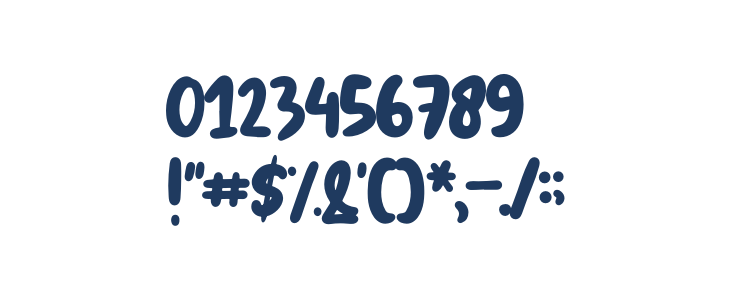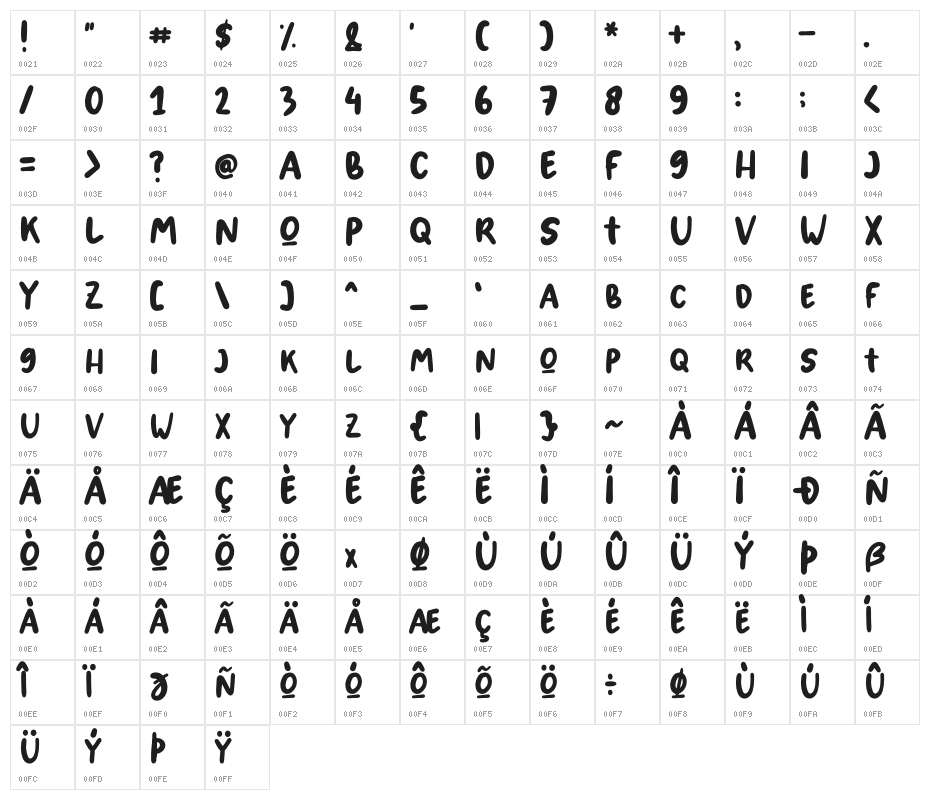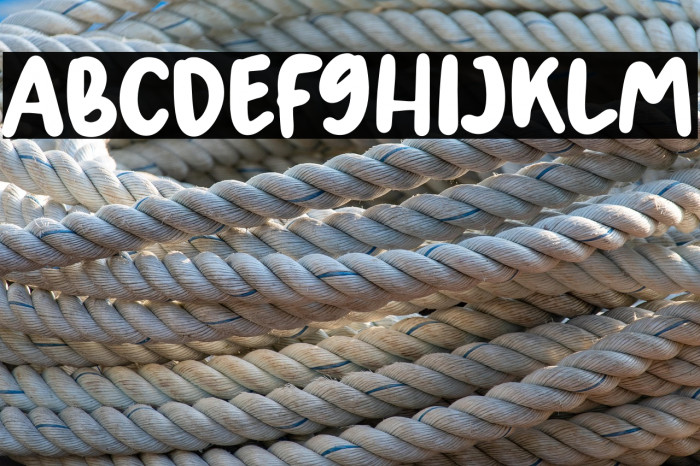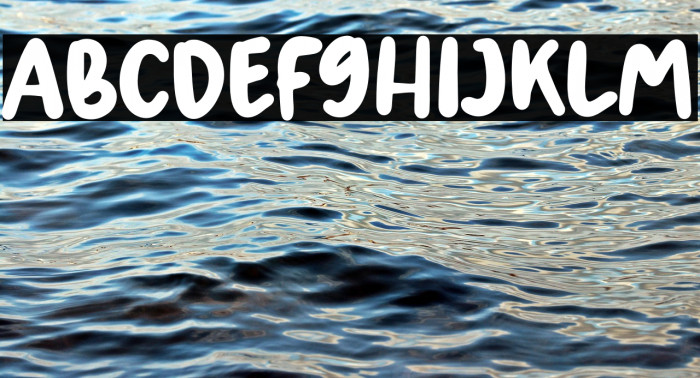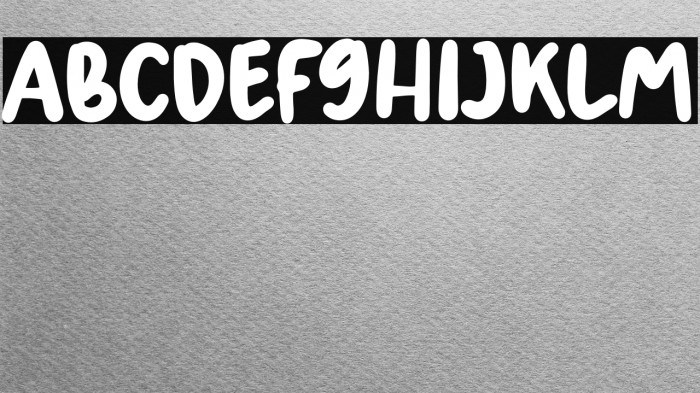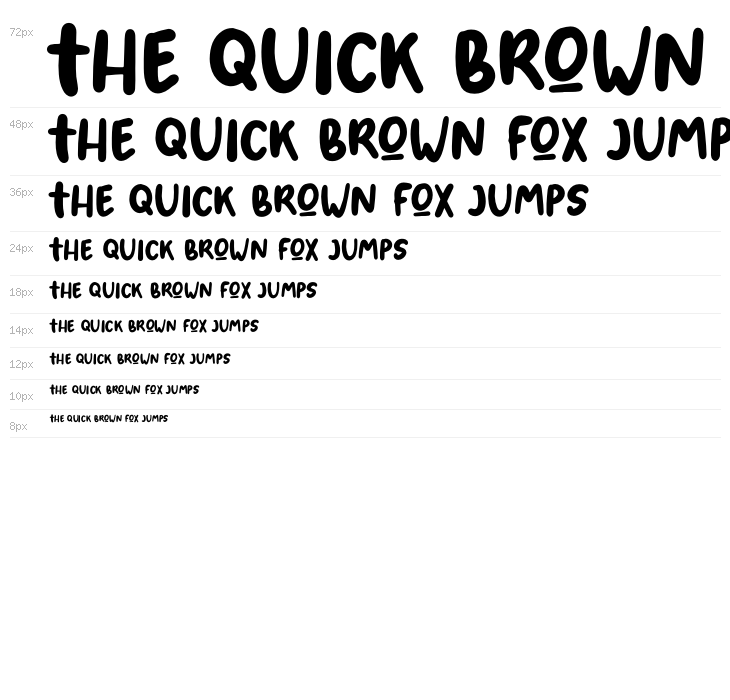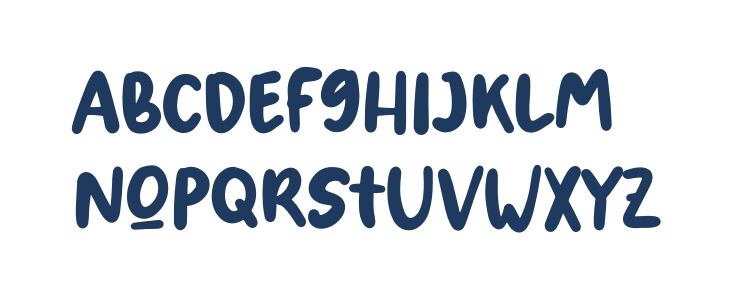
Spring Blossom Font
Spring Blossom Description
This font exudes a playful and energetic vibe with its bold, rounded characters. The letters are crafted with a hand-drawn aesthetic, giving them a casual and approachable feel. The strokes are consistent in thickness, contributing to a uniform appearance across all characters. The font maintains a lively and informal style, making it suitable for projects that require a friendly and engaging look. Its boldness ensures readability, while the rounded edges soften the overall impact, making it ideal for creative and fun designs.
| Proposed Projects | Ideal for children's books, playful branding, casual invitations, and creative posters. |